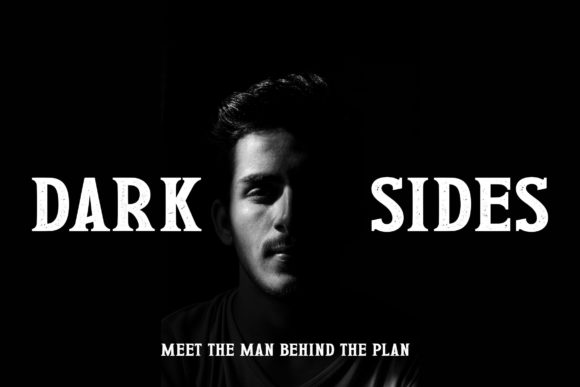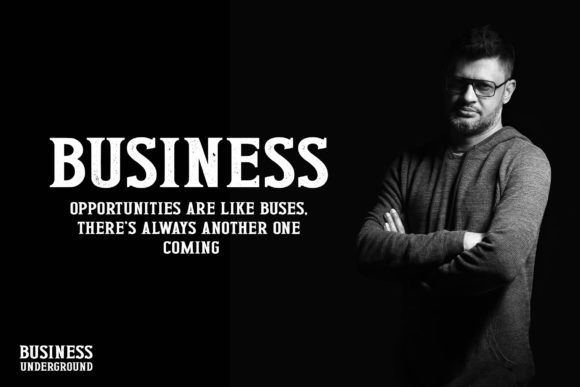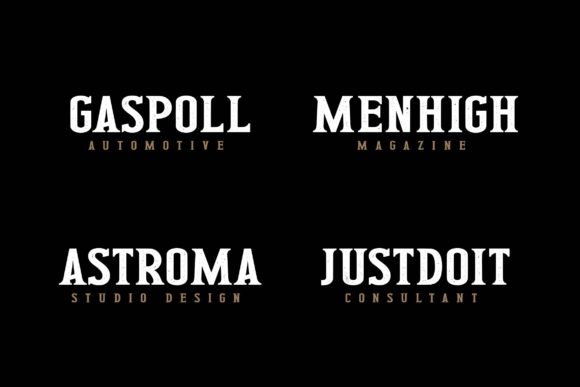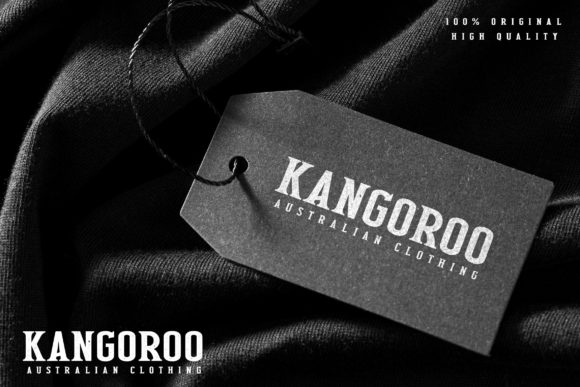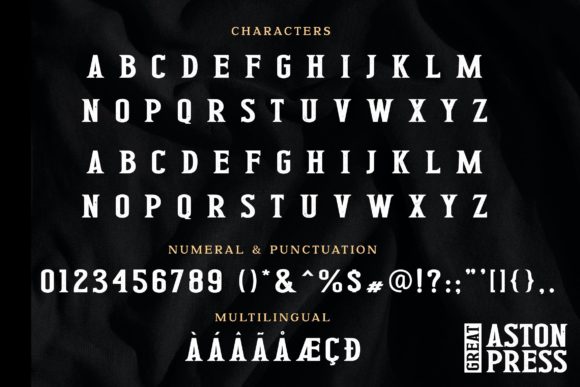
Introducing Great Aston Press: The Ultimate Serif Font for Designers and Crafters
Are you tired of using the same old fonts for your design projects? Look no further! Great Aston Press is a distinct and bold serif font that is sure to elevate your designs to the next level. With its versatility and wide range of applications, this font is perfect for designers and crafters looking to add a touch of sophistication and elegance to their work.
What Makes Great Aston Press So Special?
Great Aston Press is a bold and eye-catching serif font that can easily be matched to an incredibly large set of projects. Whether you’re working on a logo, packaging, advertisement, magazine, or any other design project, this font is sure to make a statement. Its classic and timeless design makes it perfect for a wide range of applications, from traditional print materials to digital designs.
One of the standout features of Great Aston Press is its PUA (Private Use Area) encoding. This means that you can access all of the glyphs and swashes with ease, giving you complete creative control over your designs. With PUA encoding, you can easily insert special characters, ligatures, and other unique features that will take your designs to the next level.
Great Aston Press is a highly versatile font that can be used in a wide range of design projects. Here are just a few examples of what you can do with this amazing font:
- Logos: Create a bold and memorable logo for your business or brand with Great Aston Press.
- Packaging: Add a touch of elegance and sophistication to your product packaging with this stunning font.
- Advertisements: Make your ads stand out from the crowd with Great Aston Press’s bold and eye-catching design.
- Magazines: Use Great Aston Press as a headline or body font to add a touch of class and sophistication to your magazine designs.
- Digital Designs: Use Great Aston Press in your digital designs, such as social media graphics, website headers, and more.
Why Choose Great Aston Press?
So why should you choose Great Aston Press for your design projects? Here are just a few reasons:
- Unique Design: Great Aston Press has a unique and distinctive design that will set your designs apart from the crowd.
- Highly Versatile: This font can be used in a wide range of design projects, from logos and packaging to advertisements and magazines.
- Easy to Use: With PUA encoding, you can easily access all of the glyphs and swashes, making it easy to use and customize.
- Professional Quality: Great Aston Press is a high-quality font that is perfect for professional designers and crafters.
| Font Name | Great Aston Press Font |
| Author | fontherapy |